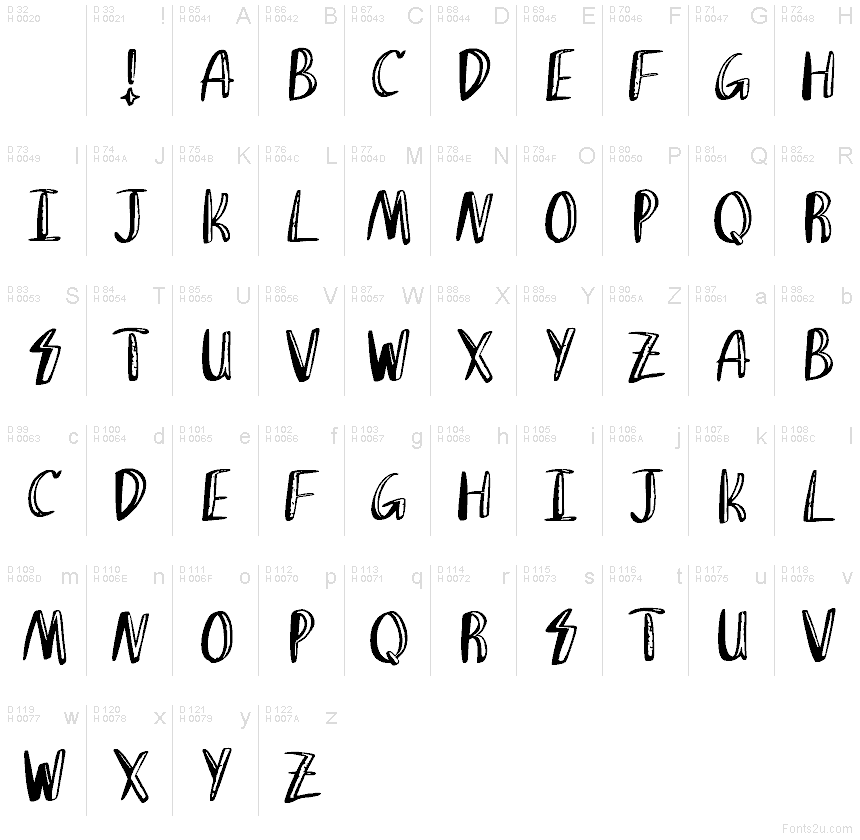
Shiny V1 Regular
Shiny V1 font by Sphnyn23 is a free inky brush typeface with a standout twist: each stroke carries a glossy cut-in highlight, like wet paint catching light. Angular forms lean forward with restless energy, and the edges feel hand-scraped—gritty yet controlled. The result is loud, tactile lettering that snaps off the page without feeling messy.
Using Shiny V1, headlines hit hard on posters, album covers, streetwear tags, skate or surf branding, bold packaging, and punchy social graphics. The rhythm of those slanted strokes builds instant motion, while the internal shine adds depth without extra effects. Pair it with a clean geometric sans for supporting text, and give this free font generous spacing and size to let the brush texture breathe.